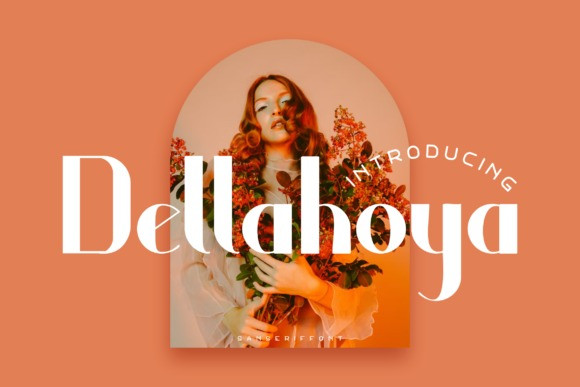
Dellahoya Font
Dellahoya Font It has a elegant, classy look and modern. It’s a great font for fashion, apparel projects, signature, album cover,
logo, branding, magazine, social media, & advertisements, but also works great for other projects.